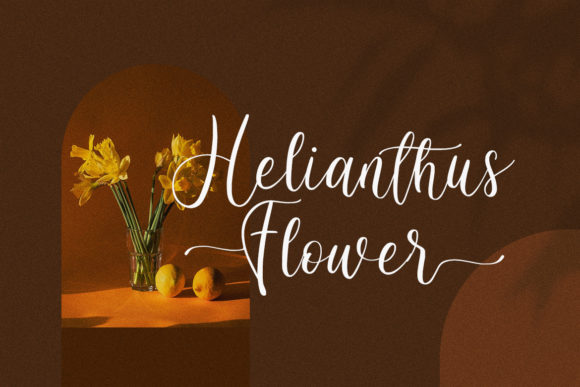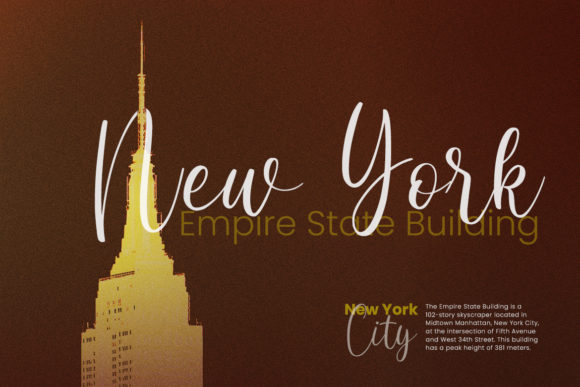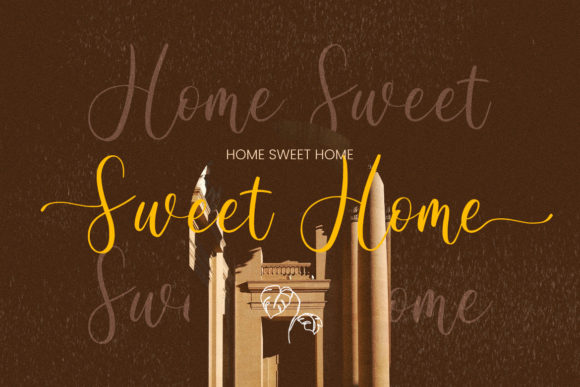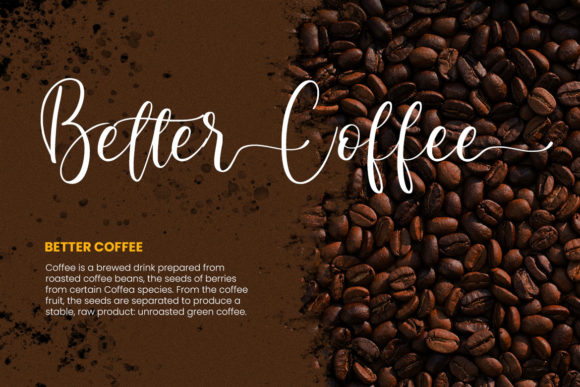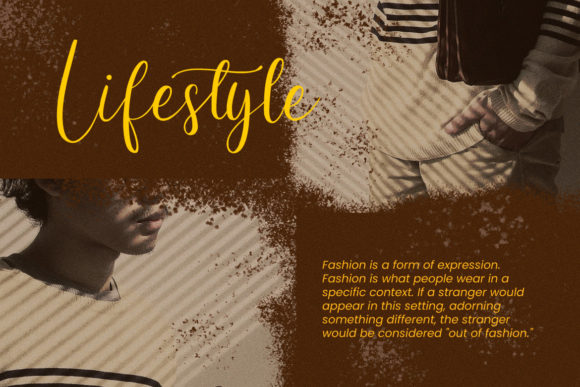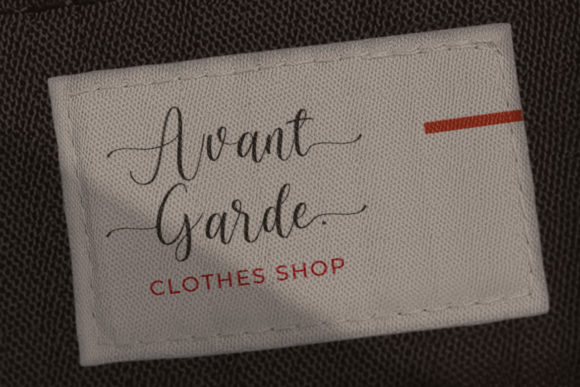
Introducing Chespine Font: The Delicate Script Font for Romantic Designs
Are you a designer or crafter looking for a font that can add a touch of romance and elegance to your designs? Look no further than Chespine Font. This beautiful, frail, and delicate script font is perfect for creating stunning wedding invitations, cards, letters, and other designs that require a sweet and romantic vibe.
What is Chespine Font?
Chespine Font is a script font that features delicate and intricate lettering. Its frail and elegant strokes make it perfect for designs that require a touch of sophistication and romance. The font is designed to work fabulously on various designs, from wedding invitations and cards to letters and other paper crafts.
Characteristics of Chespine Font
Chespine Font has several characteristics that make it a great choice for romantic designs. Some of its key features include:
- Delicate strokes: Chespine Font features delicate and intricate strokes that give it a romantic and elegant feel.
- Frail lettering: The font’s frail lettering makes it perfect for designs that require a touch of sophistication and whimsy.
- Script style: Chespine Font is a script font, which means it features connected letters that flow together beautifully.
- Romantic vibe: The font’s overall design and feel make it perfect for creating romantic and elegant designs.
Uses for Chespine Font
Chespine Font is a versatile font that can be used for a variety of designs, including:
- Wedding invitations: The font’s romantic and elegant feel make it perfect for wedding invitations and other wedding-related designs.
- Cards and letters: Chespine Font is great for creating beautiful and elegant cards and letters for special occasions.
- Paper crafts: The font’s delicate and intricate strokes make it perfect for paper crafts, such as scrapbooking and journaling.
- Signage and branding: Chespine Font can also be used for signage and branding, particularly for businesses that want to convey a sense of elegance and sophistication.
Tips for Using Chespine Font
Here are a few tips for using Chespine Font in your designs:
- Use it sparingly: Chespine Font is a delicate font, so it’s best to use it sparingly to avoid overwhelming your design.
- Pair it with other fonts: The font pairs well with other fonts, particularly sans-serif fonts, to create a beautiful and elegant contrast.
- Experiment with sizes and colors: Don’t be afraid to experiment with different sizes and colors to find the perfect combination for your design.
Chespine Font is a beautiful and delicate script font that is perfect for creating romantic and elegant designs. Its frail and intricate strokes make it perfect for wedding invitations, cards, letters, and other paper crafts. With its versatility and elegance, Chespine Font is a great addition to any designer’s or crafter’s font collection.
Get Creative with Chespine Font
So why not get creative with Chespine Font and add a touch of romance and elegance to your designs? With its beautiful and delicate strokes, Chespine Font is sure to inspire you to create stunning and elegant designs that will leave a lasting impression.